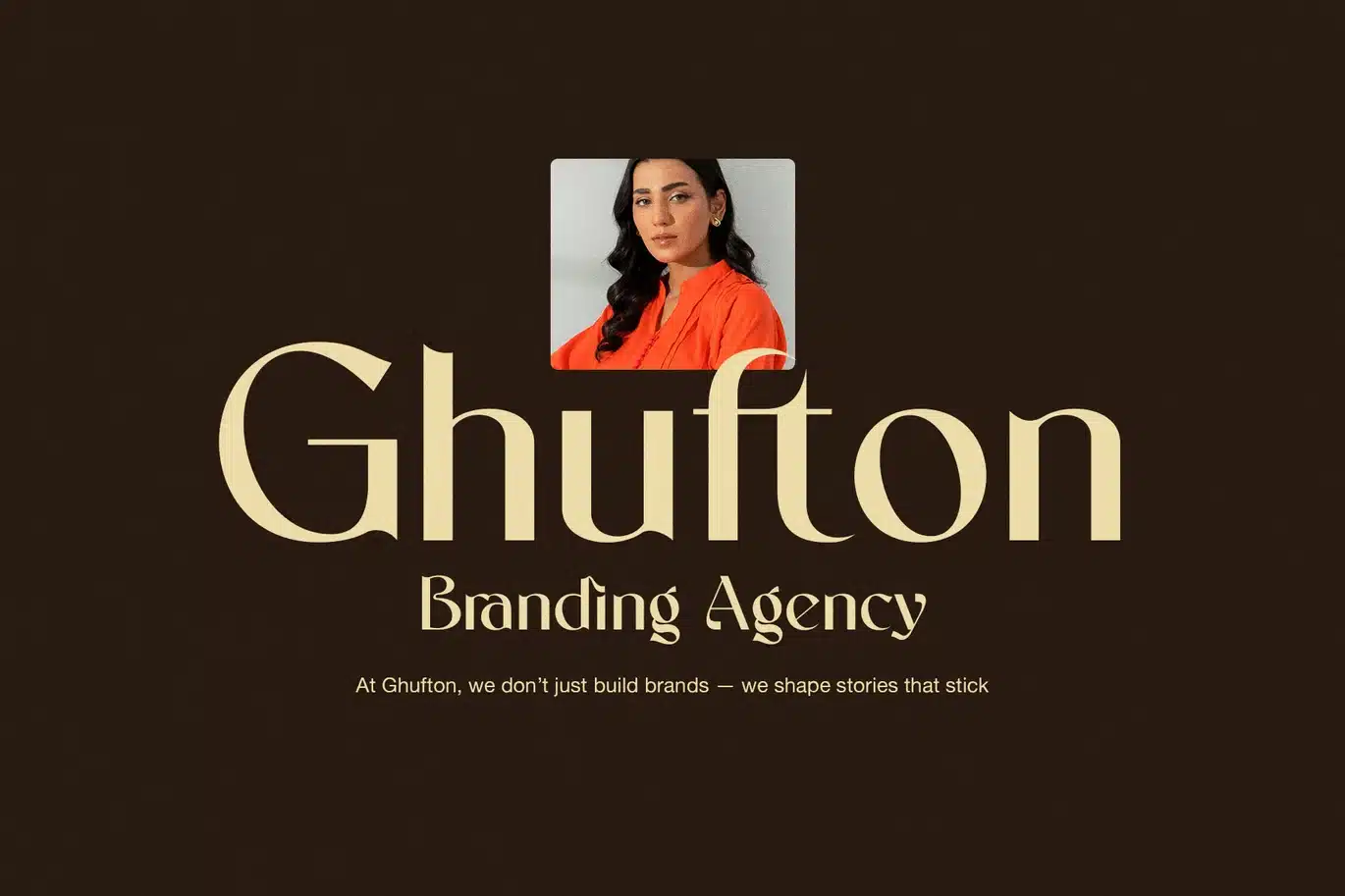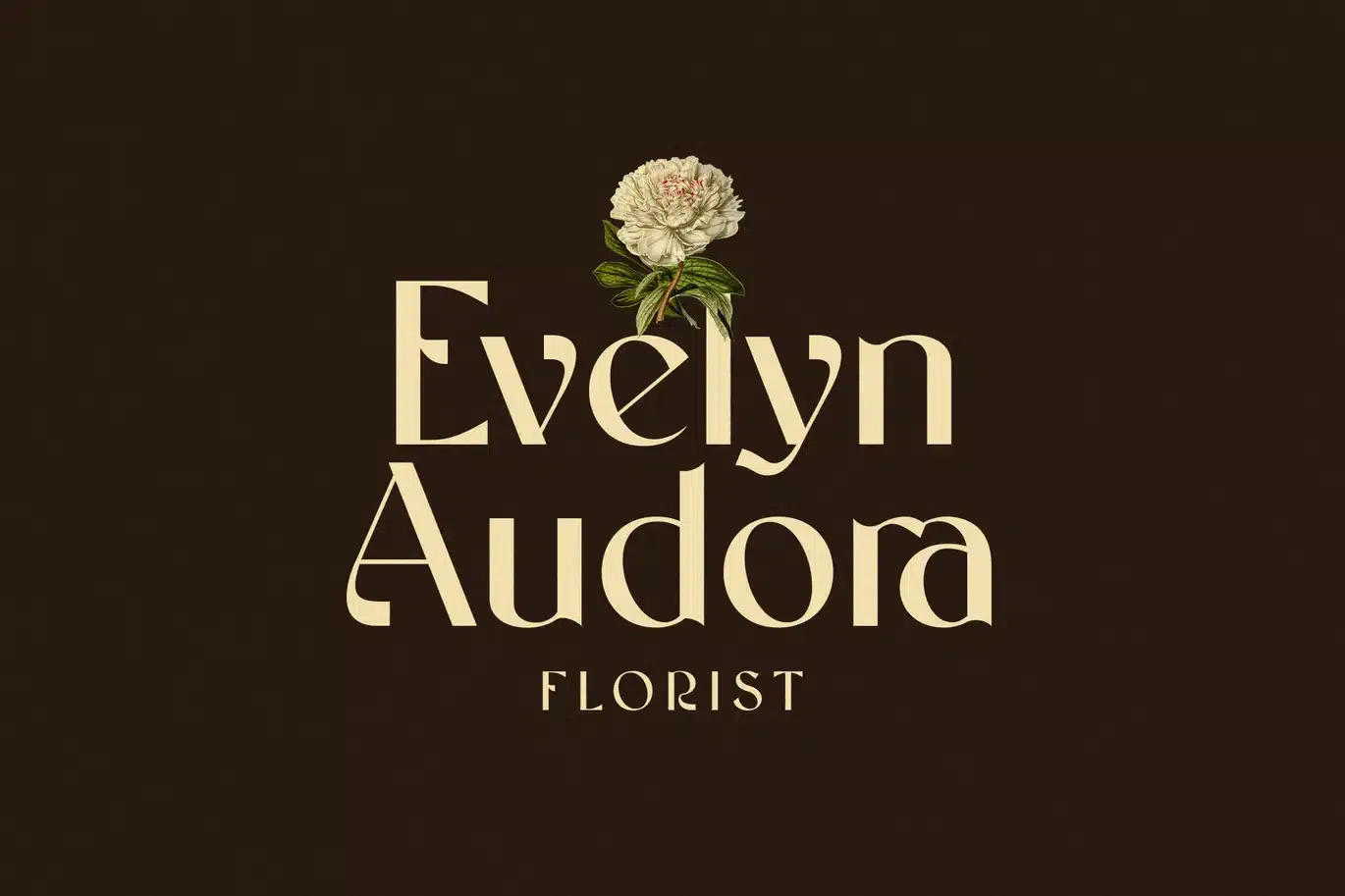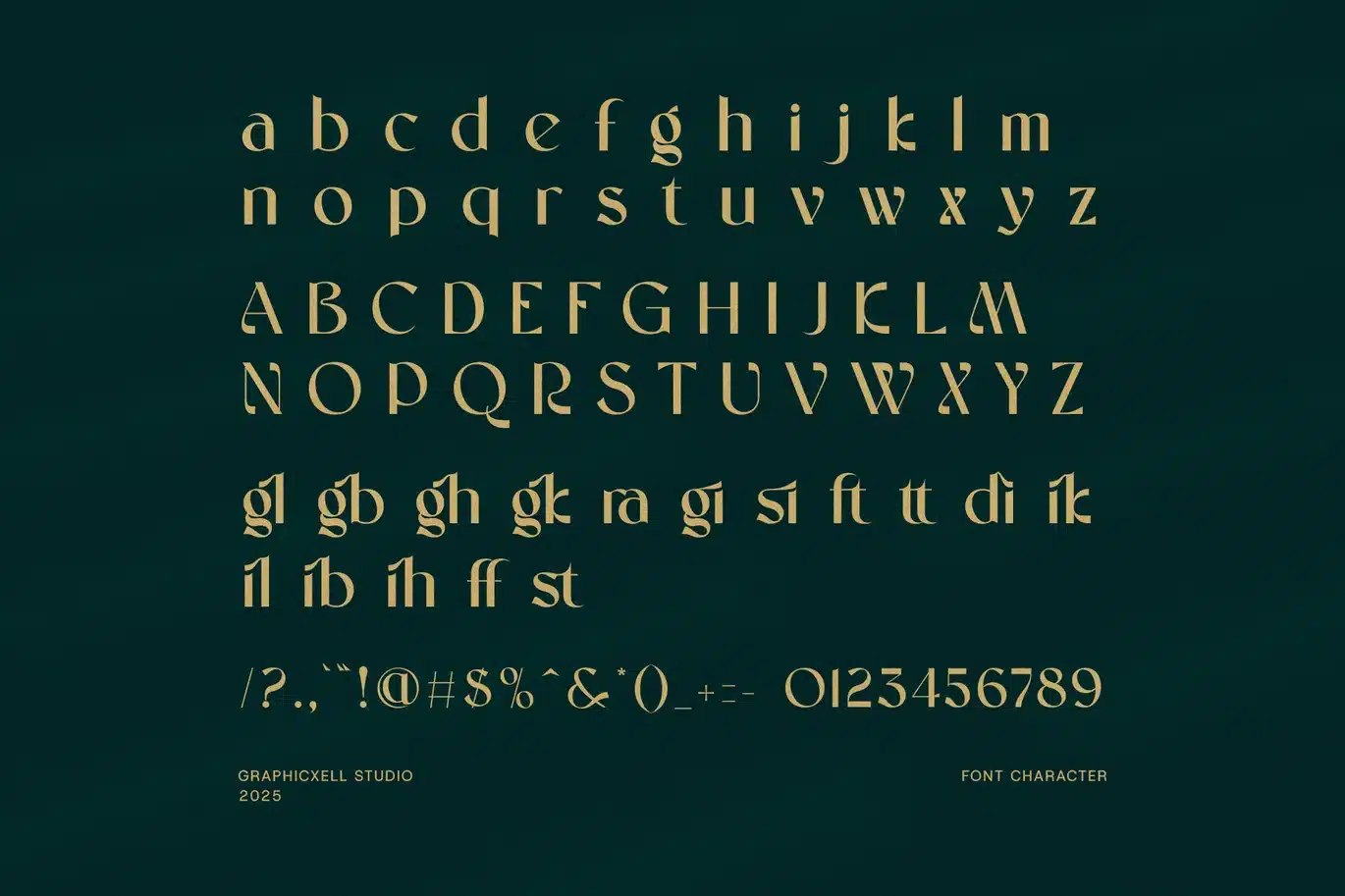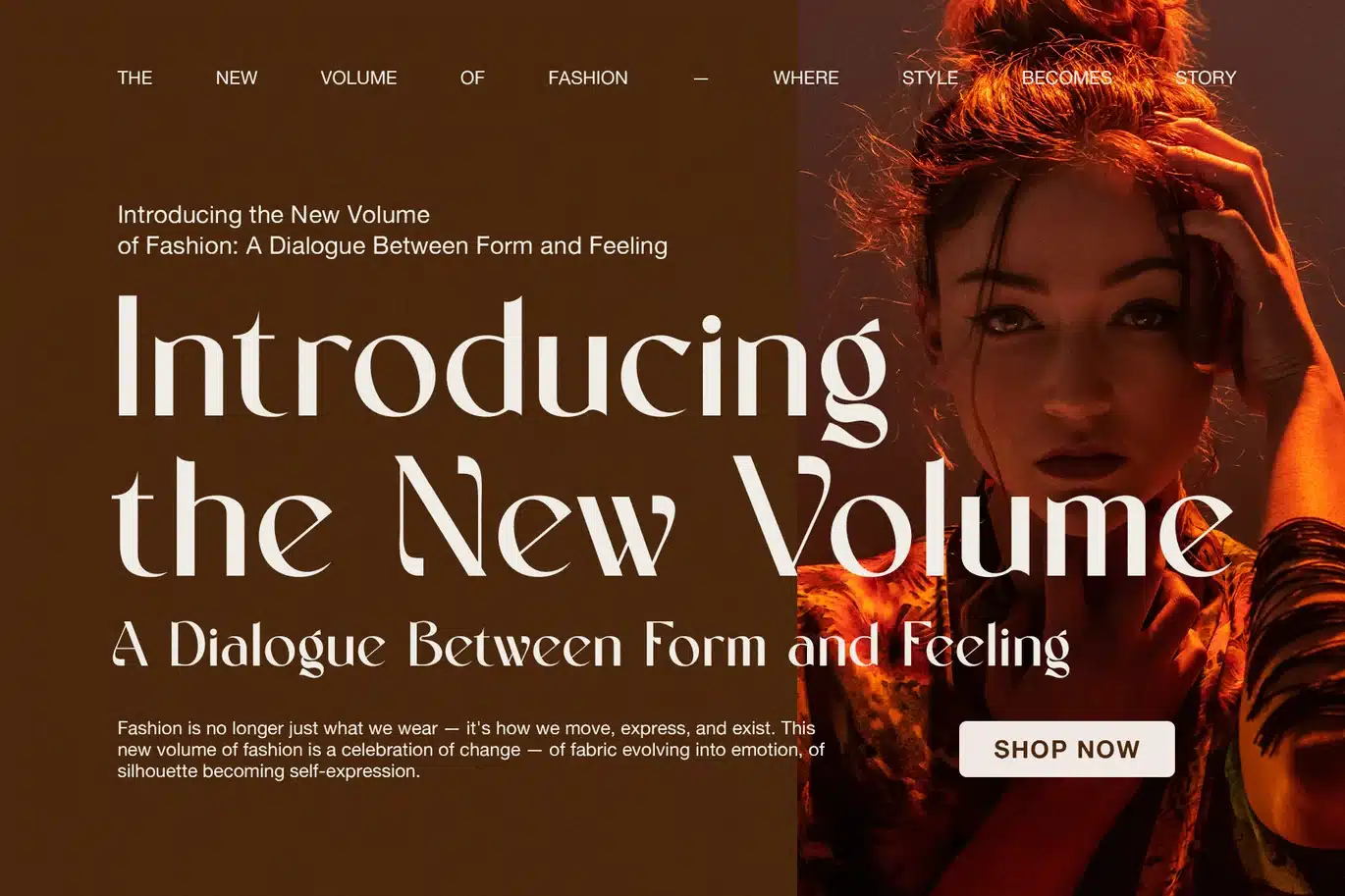
Riglom Elegant Sans Serif – Modern Clean Font
Riglom is an elegant sans serif font designed to give your projects a clean, modern, and professional look. It combines simple shapes with a smooth style, making it great for branding, logos, headlines, and digital content. Whether you want to create a minimalist website, stylish product packaging, or eye-catching marketing materials, Riglom fits perfectly.
Key features include:
Clean and simple design ideal for modern visuals
Easy to read on both print and screens
Works well in small and large sizes
Supports many languages for worldwide projects
Perfect for corporate, fashion, and lifestyle brands
Moreover, Riglom’s open letters help improve readability. Because of its neat and balanced shapes, it adds a touch of elegance without being too fancy. Also, this font pairs well with other fonts, giving you more freedom in your designs. Plus, it works smoothly across different platforms, so your text looks great everywhere — from websites to print.
If you need a font that feels fresh and modern but still professional, Riglom is a strong choice. It fits well for startups, agencies, or personal projects. Additionally, its simplicity makes it great for magazines, social media posts, and user interfaces.
In short, Riglom helps your brand look sharp and up to date. It makes the design process easier because it adapts to many uses with clear and stylish text. Therefore, choosing Riglom means your project will look polished and attract the right attention.